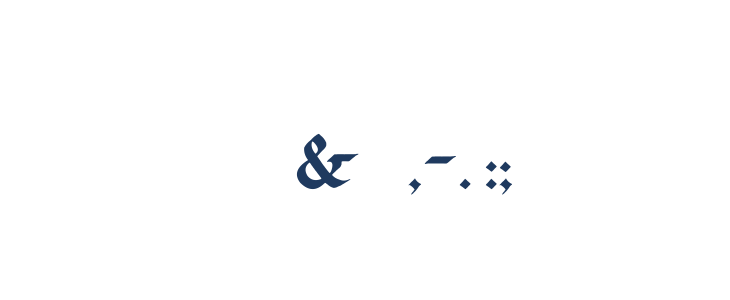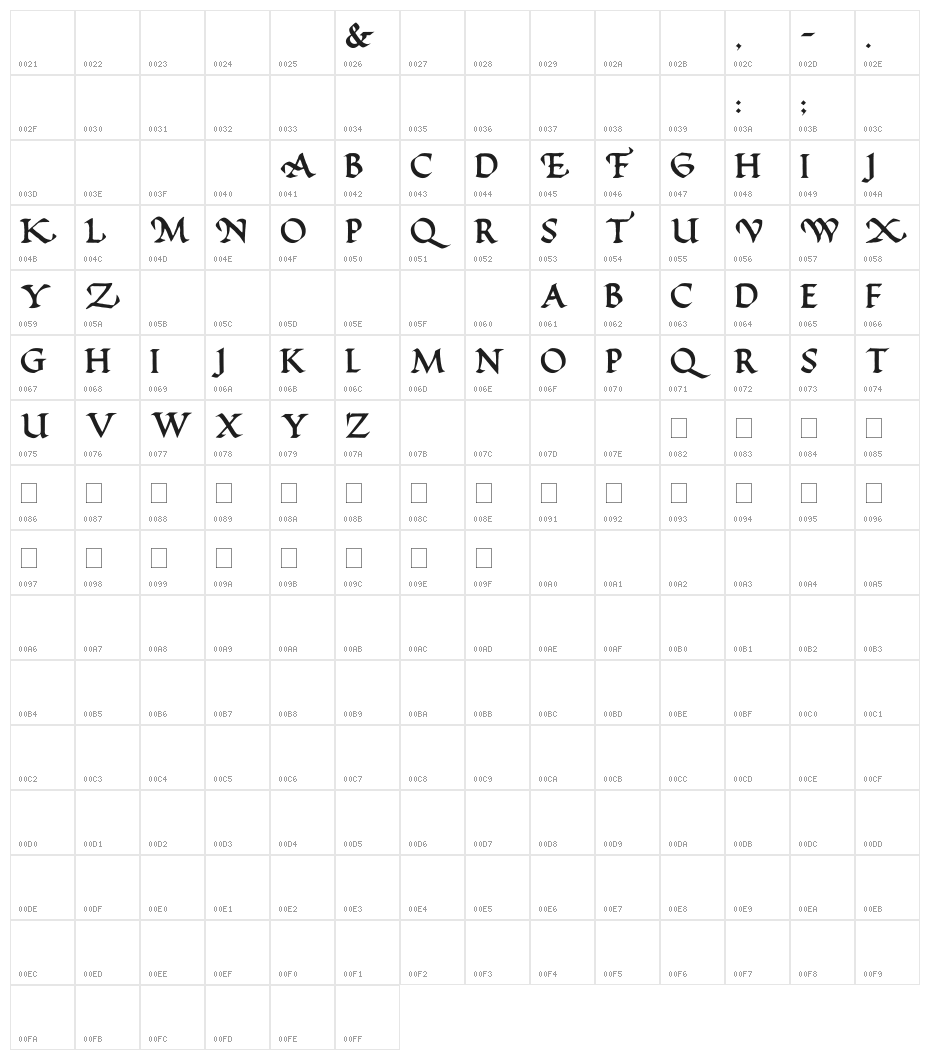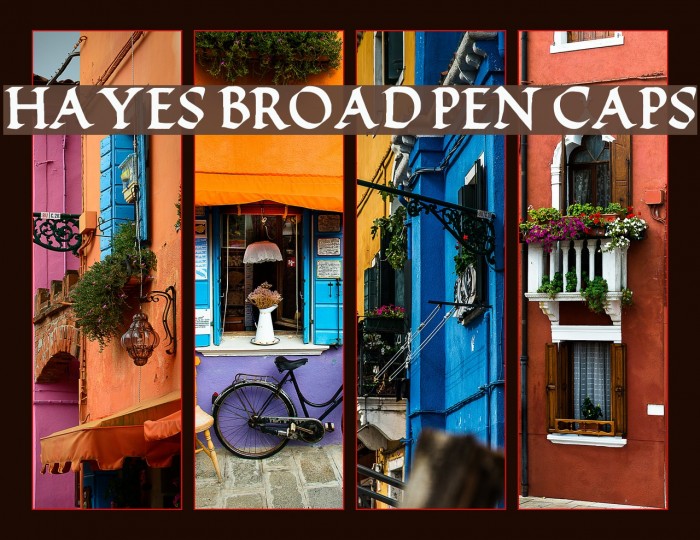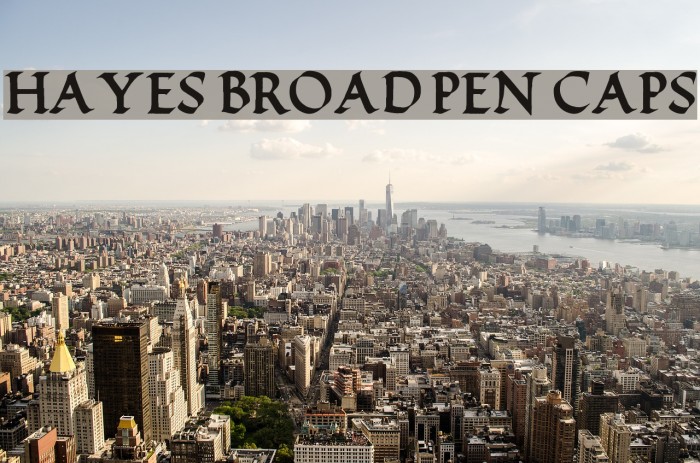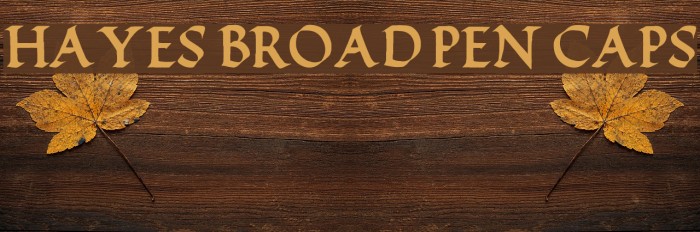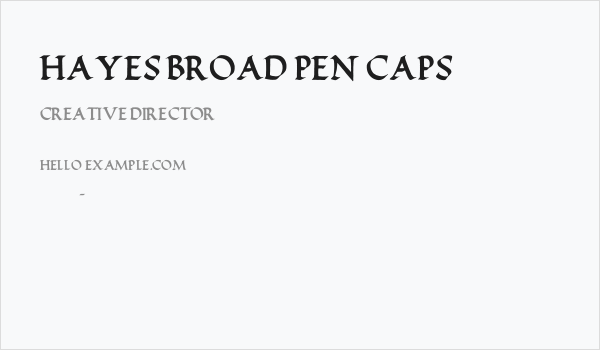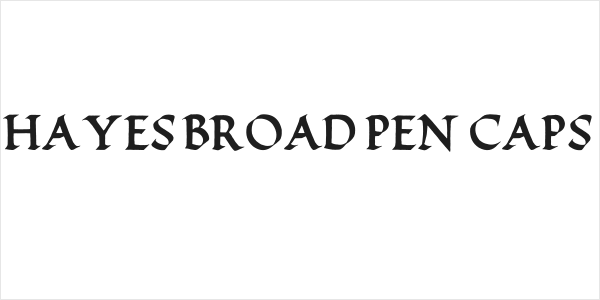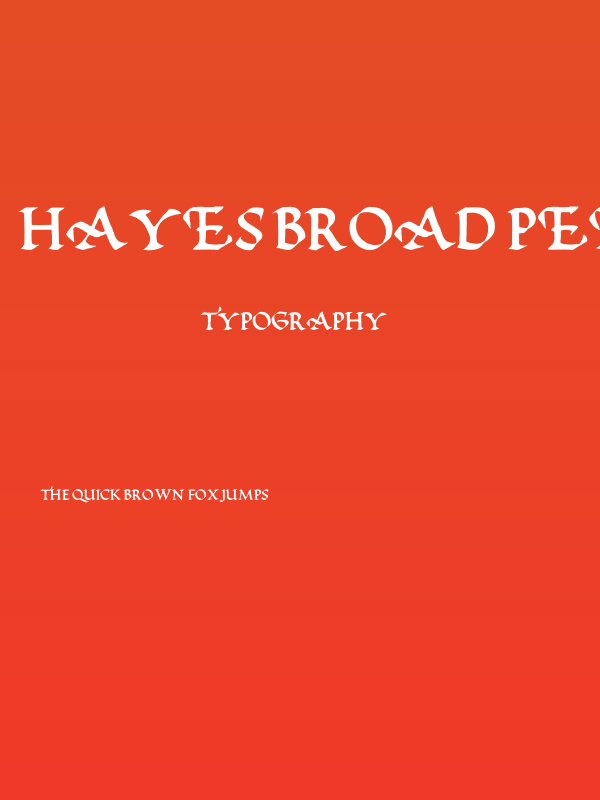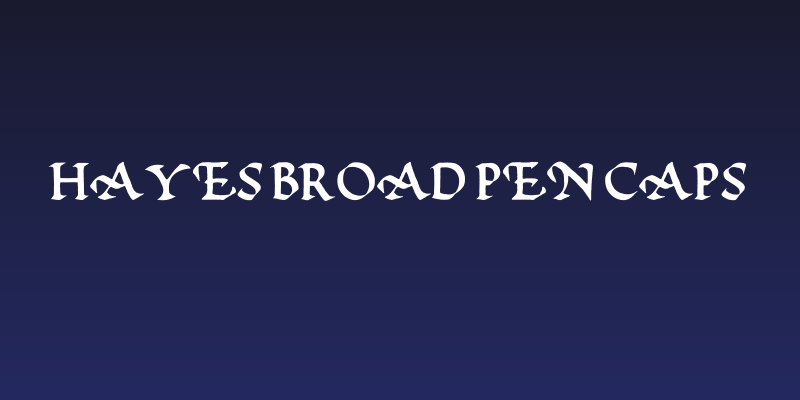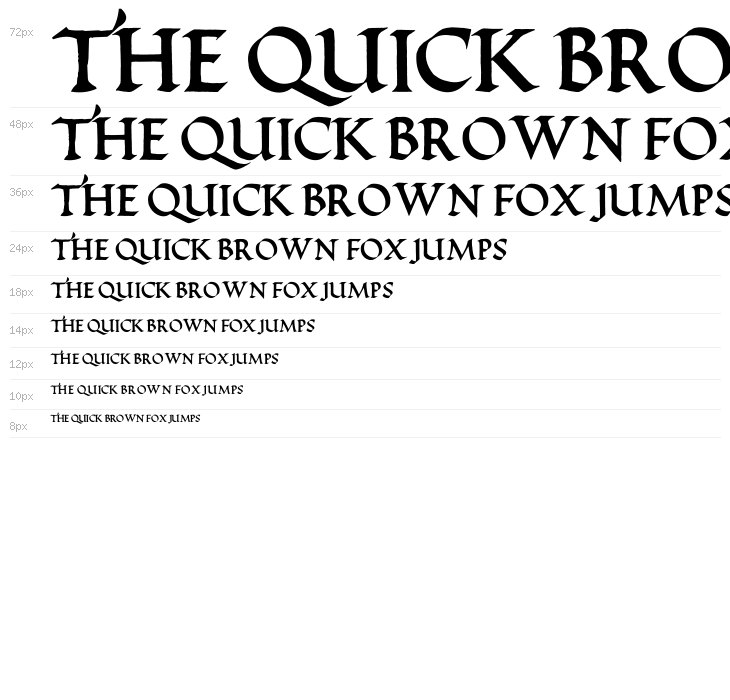
Hayes Broad Pen Caps Font
Hayes Broad Pen Caps Description
This font features a striking and bold design with a distinct medieval flair, characterized by sharp, angular strokes and a strong presence. The uppercase letters exhibit a unique blend of traditional calligraphic elements with a modern twist, making them ideal for creating an impactful visual statement. The lowercase letters maintain a consistent style, complementing the uppercase with their own intricate details. The numerals and special characters are crafted with the same attention to detail, ensuring a cohesive look across all elements. This font's boldness and decorative nature make it perfect for projects that require a touch of historical elegance and sophistication.
| Use Case | Headlines, Logos, Decorative text |
| Proposed Projects | Ideal for historical-themed designs, book covers, posters, and branding that requires a touch of elegance and tradition. |